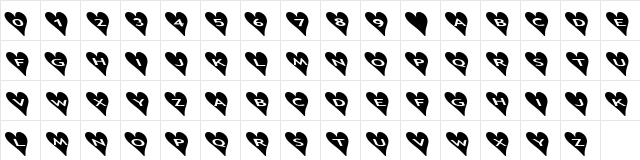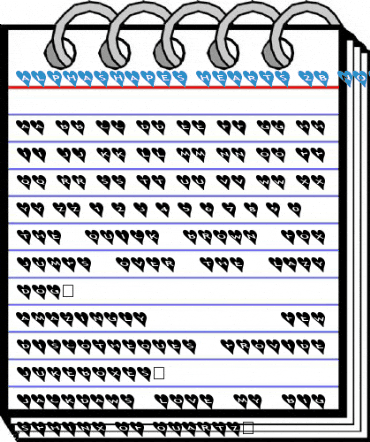
Complete AlphaShapes hearts 2b Normal glyph index. Displaying only characters natively supported by AlphaShapes hearts 2b Normal font.
AlphaShapes hearts 2b is a composed and adaptable typeface that performs quietly and consistently across a wide range of design contexts.